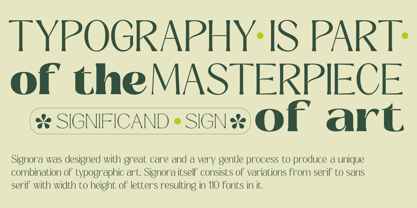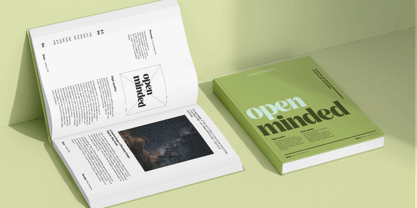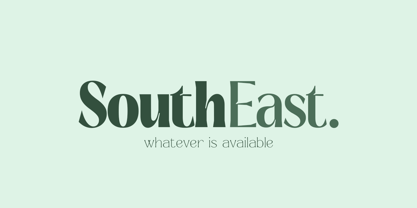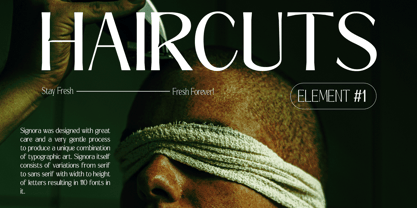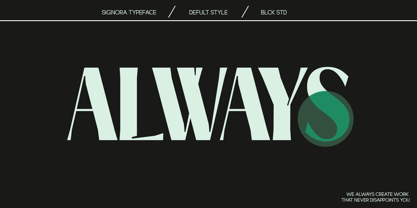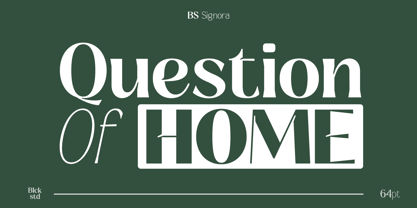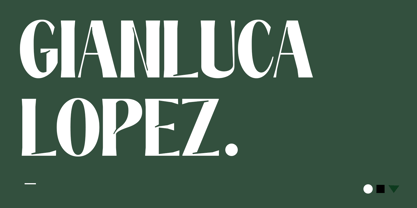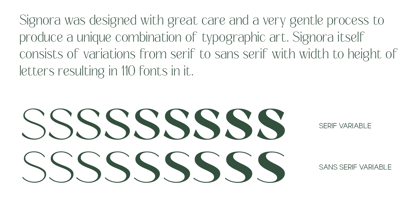
Signora Classica
by Black Studio
The Signora Classica Font Family was designed by Reza Haitami and published by Black Studio. Signora Classica contains 110 styles and family package options. More about this family
Signora is a sophisticated variable type family that seamlessly blends serif and sans-serif styles, offering a perfect balance between tradition and modernity. Designed with three axes—likely covering weight, width, and slant—it provides extensive flexibility for designers to fine-tune its appearance. The serif style embodies elegance and refinement, making it ideal for editorial design, luxury branding, and formal communication. In contrast, the sans-serif variant offers a clean, contemporary aesthetic, well-suited for corporate identities, digital interfaces, and modern layouts.
With its expansive design space, Signora adapts effortlessly to diverse applications, ensuring readability and visual harmony across print and digital platforms. Whether used independently or together, the two styles create a cohesive and adaptable typographic system, allowing for creative versatility. Its refined details and dynamic range make Signora an essential tool for designers seeking both aesthetic sophistication and functional adaptability in their typography.
Typeface Features:
• 389 Glyphs
• 3 Subfamilies: Weight, Slant, Width
• 9 Weight: Thin, Extra Light, Light, Regular, Medium, Semi Bold, Bold, Extra Bold, Black
• Complete Collection: 108 Styles + 2 Variable Font Serif & Sans
• Kerning
Designers: Reza Haitami
Foundry: Black Studio